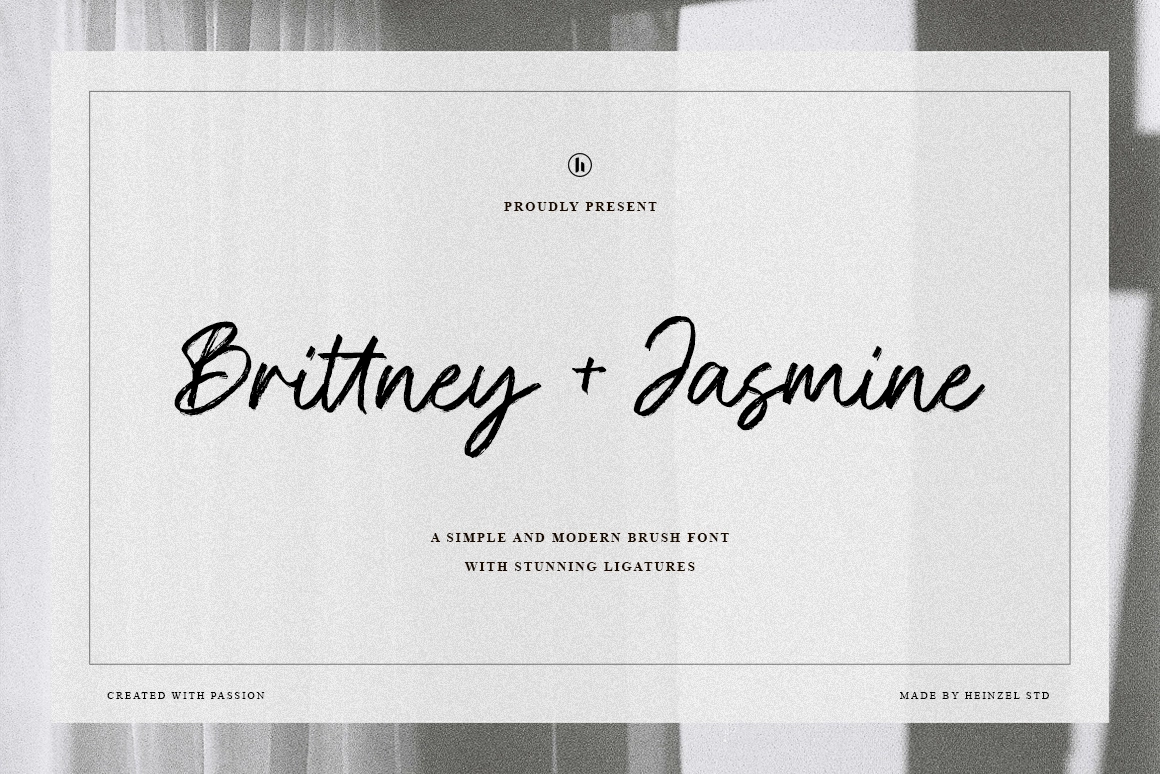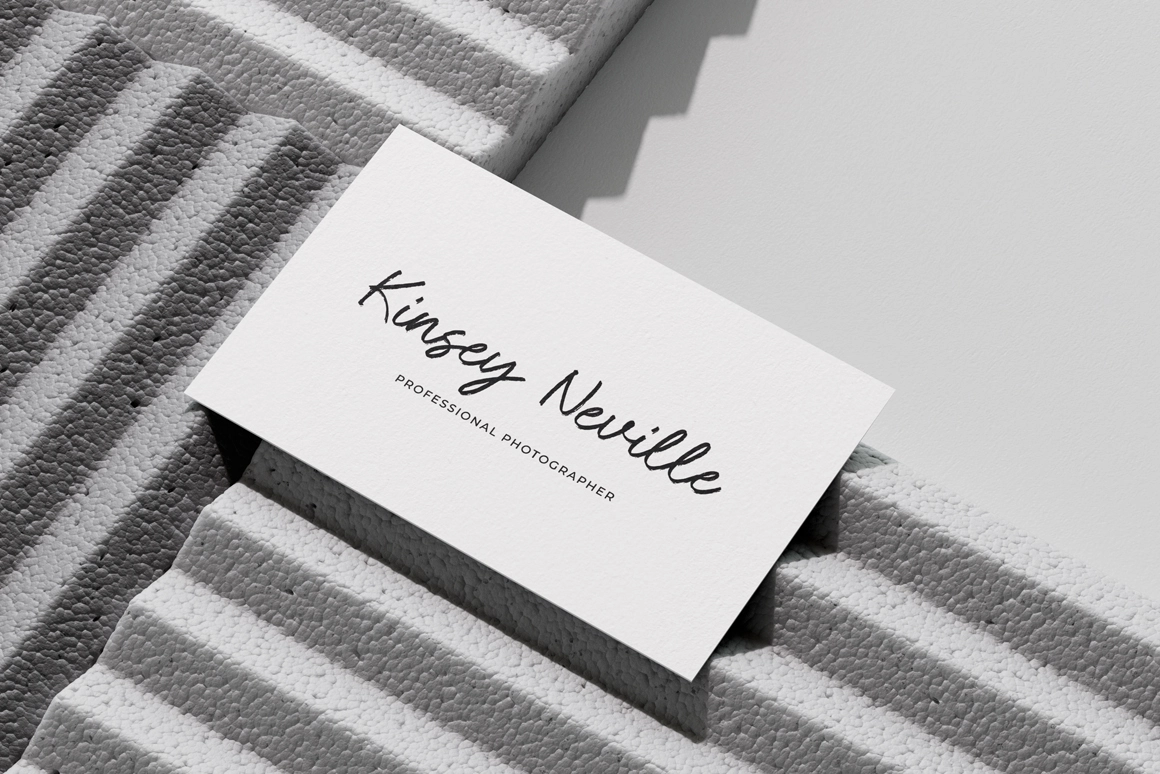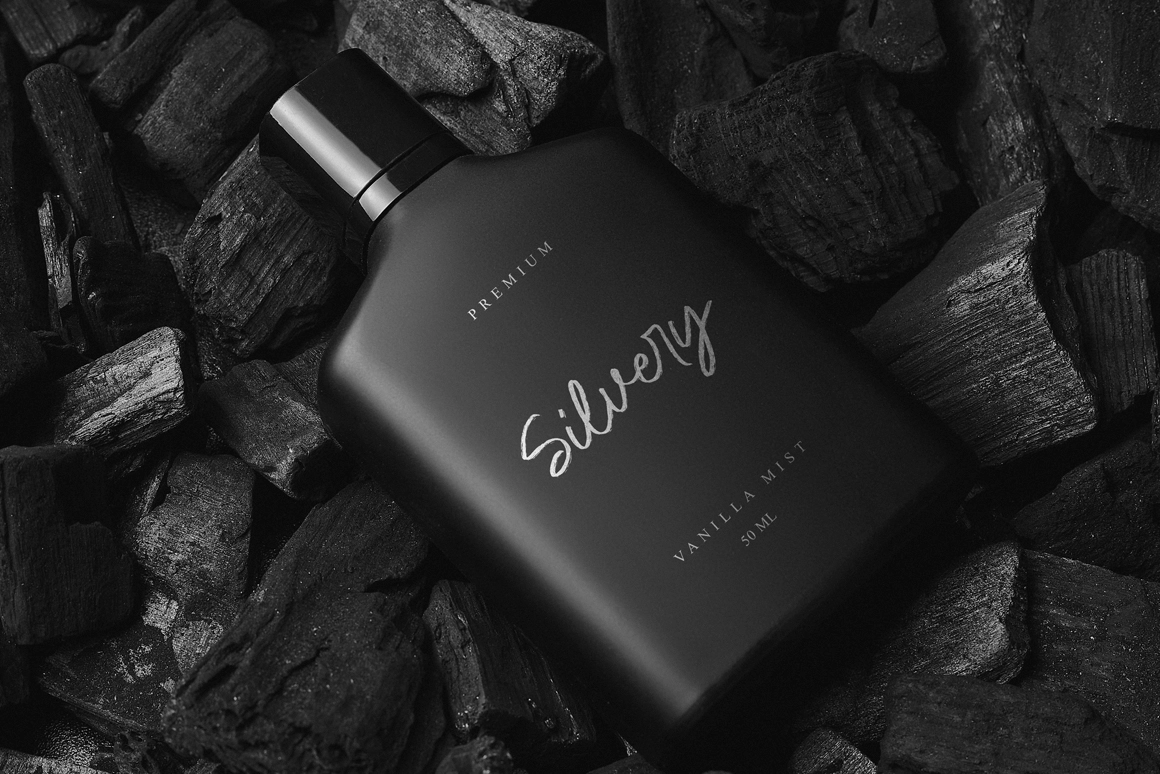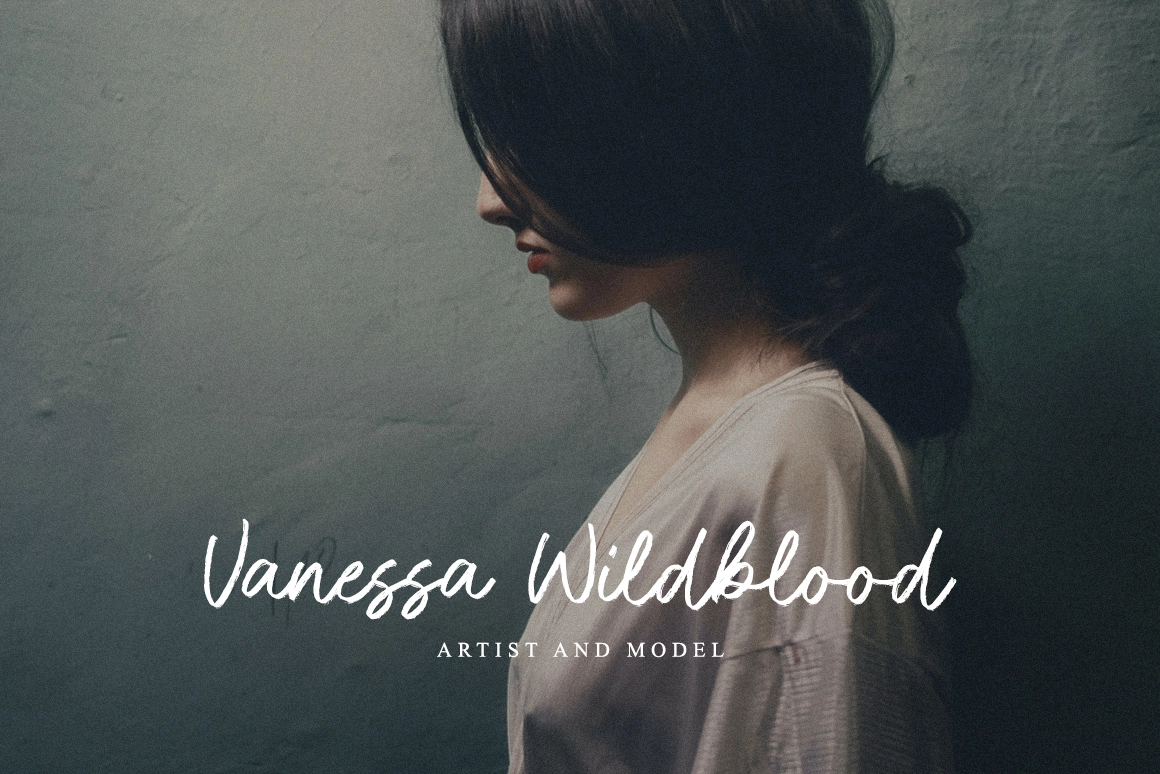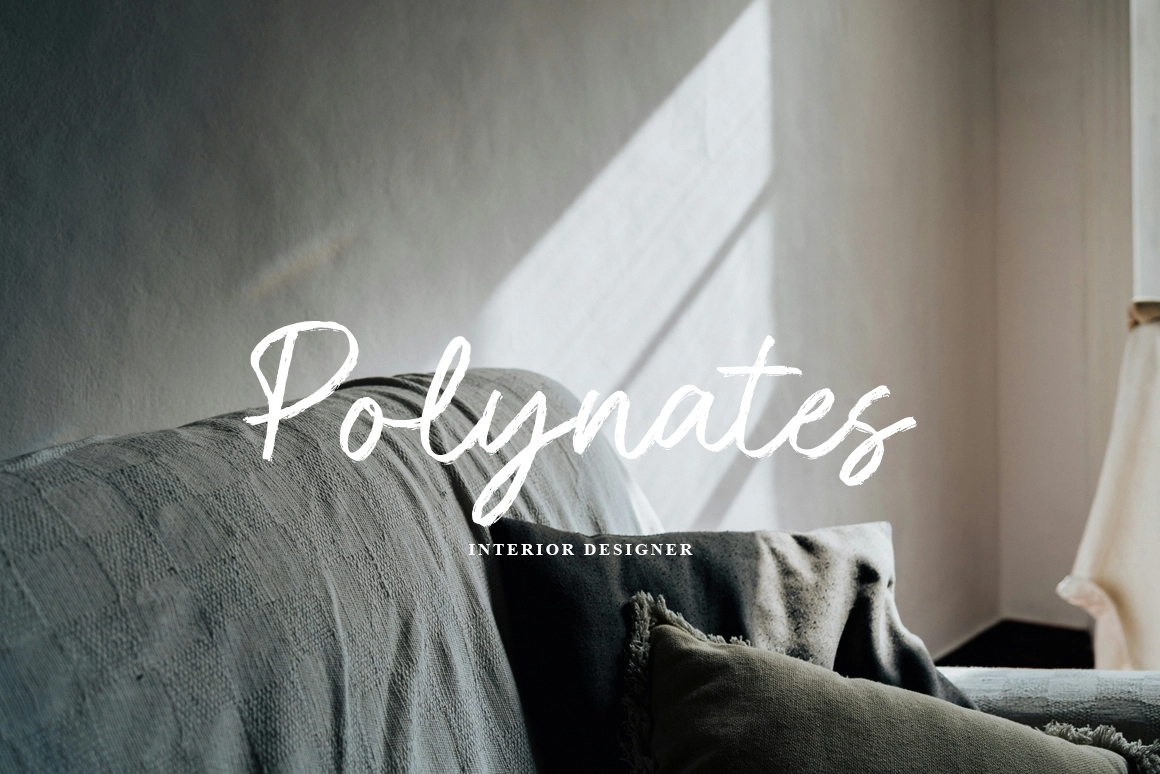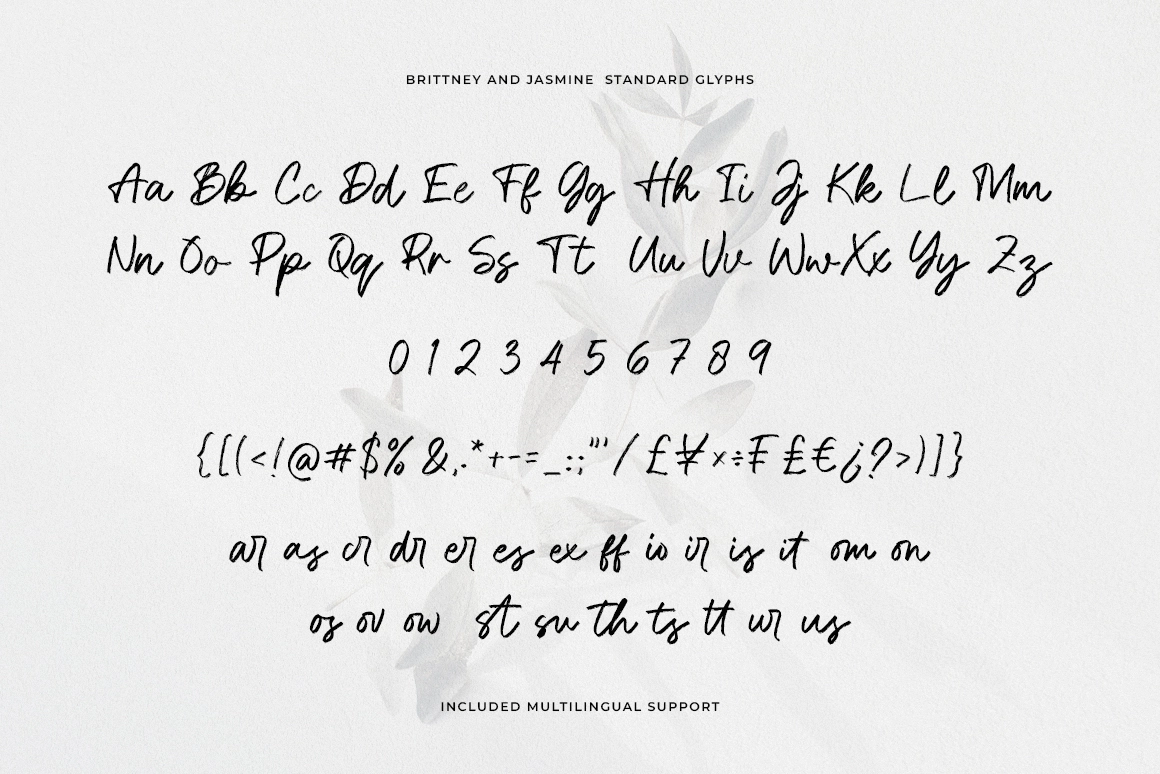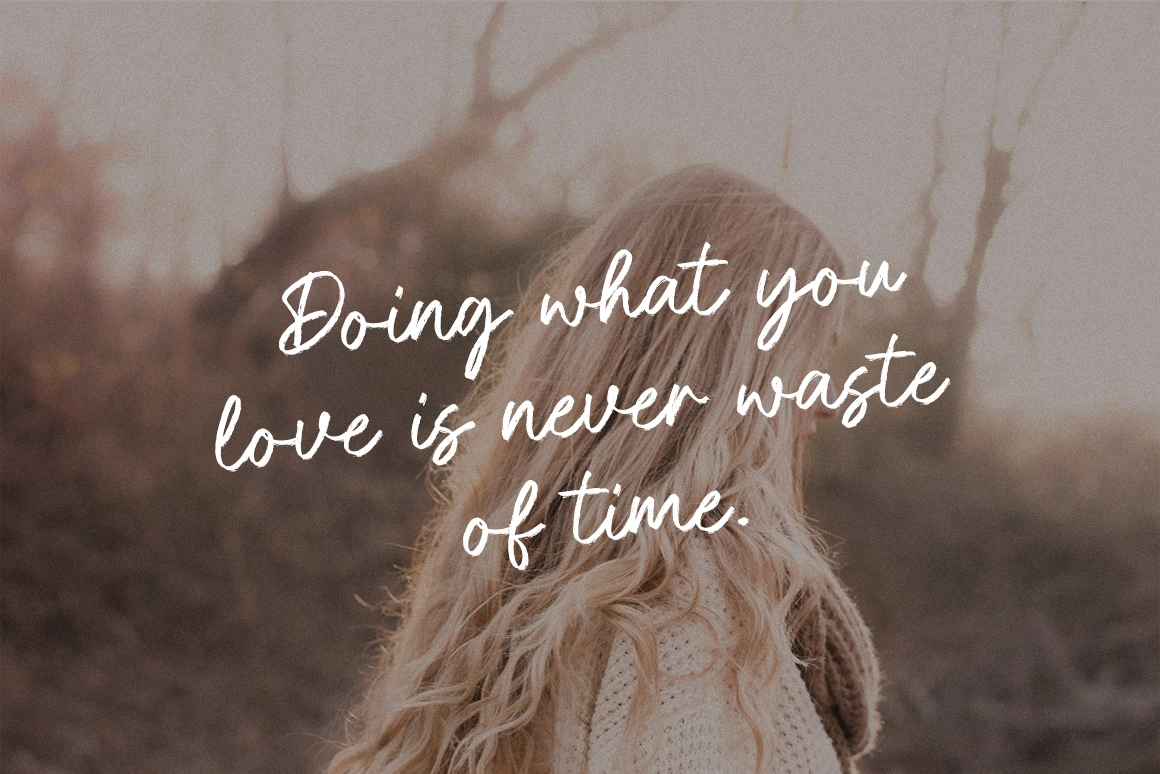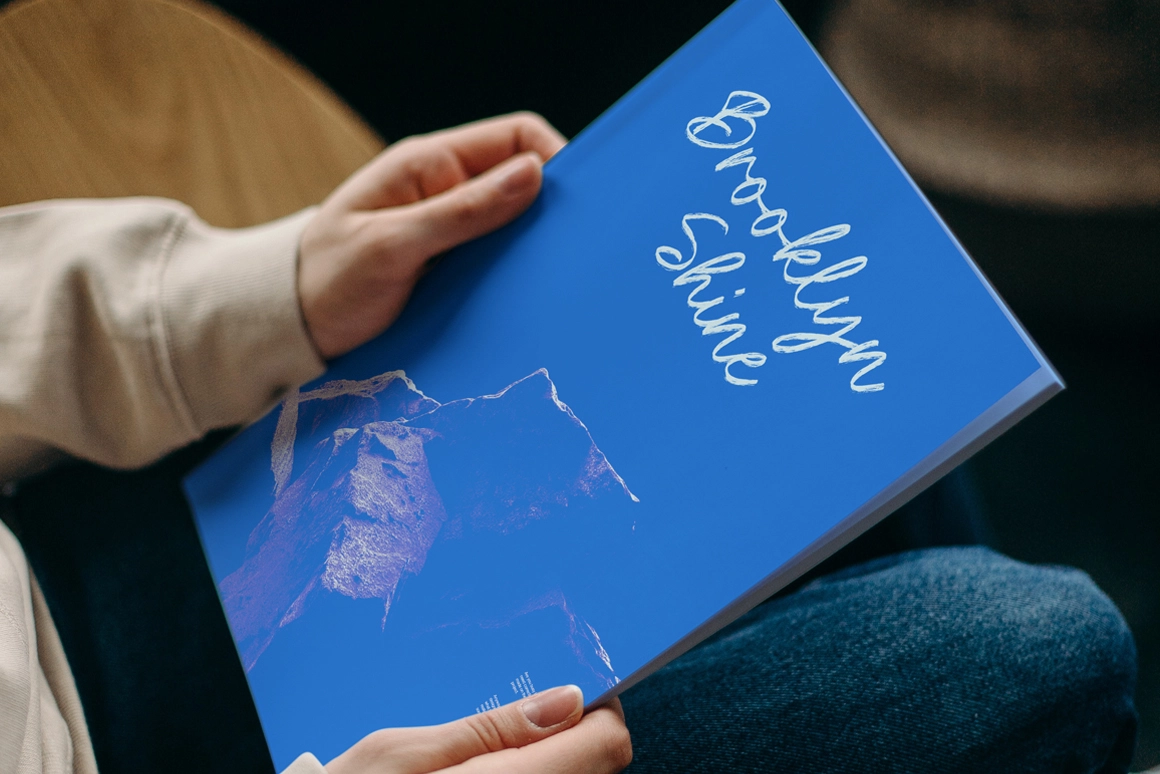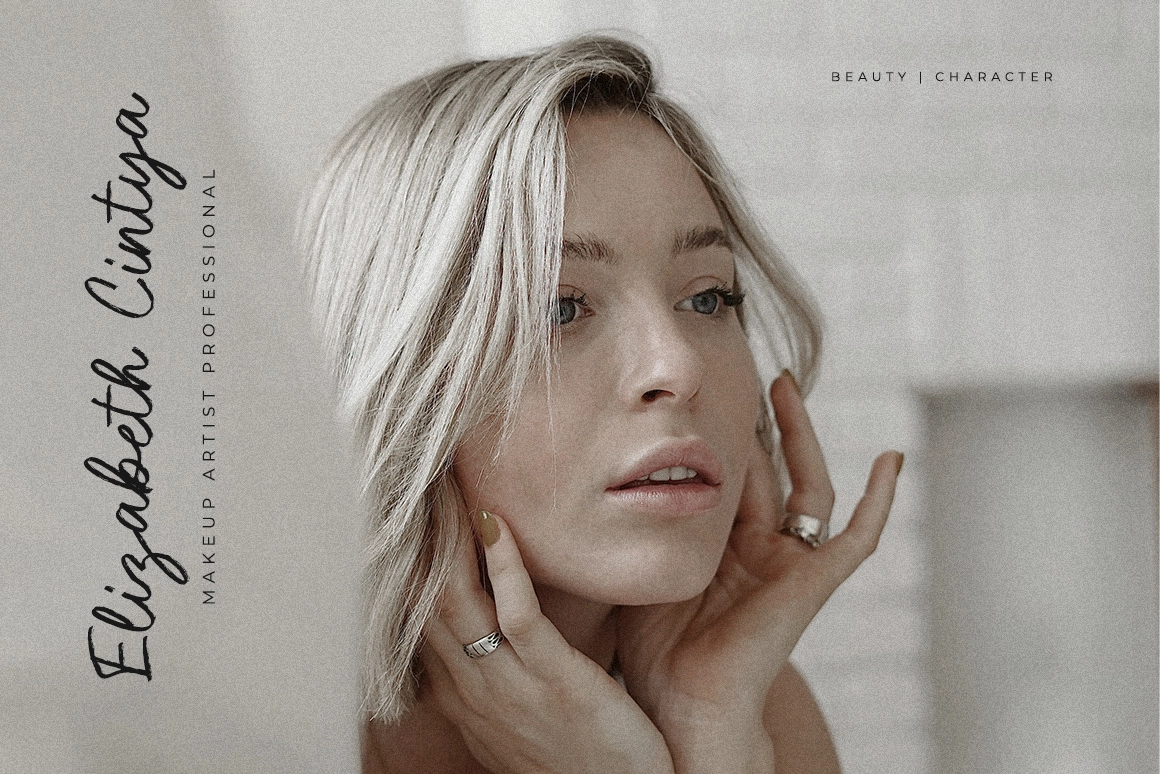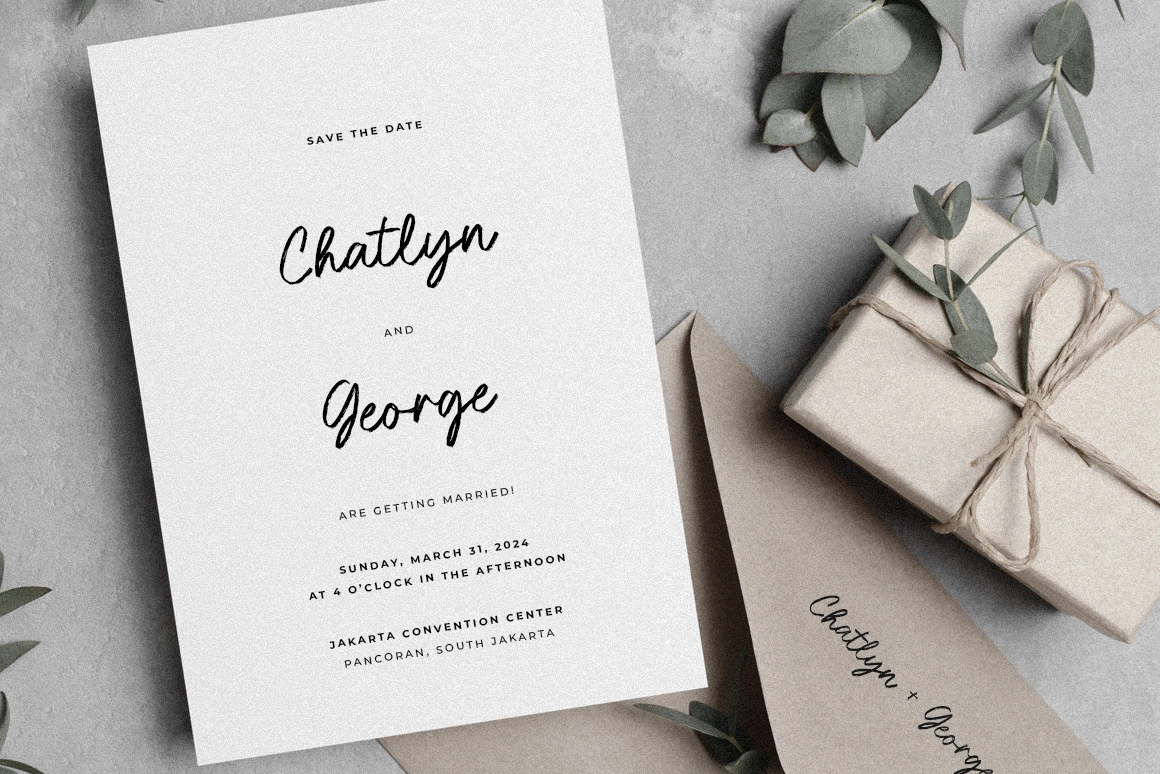
Brittney and Jasmine - Signature Brush Font
This signature brush font has a natural handwritten flow, loose rhythm, and expressive strokes with a crisp ink-like texture. Its handwritten character gives logos, quotes, and editorial layouts a personal, stylish look without getting too polished.
Brittney and Jasmine works well for wedding invitations, branding, photography watermarks, fashion editorials, packaging, social media graphics, boutique logos, greeting cards, magazine covers, quote posters, product labels, stationery, and more. The ligatures help the lettering read like quick pen movement, with enough variation to keep names, short phrases, and display text looking custom.
• Ligatures